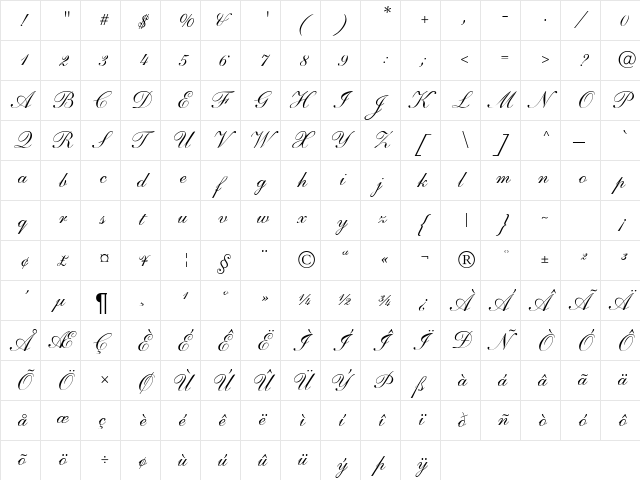
SarahAndanteDB Normal
Design Context for SarahAndanteDB Typeface
SarahAndanteDB flows with the natural rhythm of handwritten lettering, making it ideal for designs that call for warmth and personal expression.
Font Pairing: Combine SarahAndanteDB with a simple geometric sans for maximum contrast — the tension between flowing curves and clean structure is a classic typographic pairing.
Pro Tip: Use SarahAndanteDB for short runs of text — names, titles, or taglines. Extended body copy in script faces tires the eye quickly.